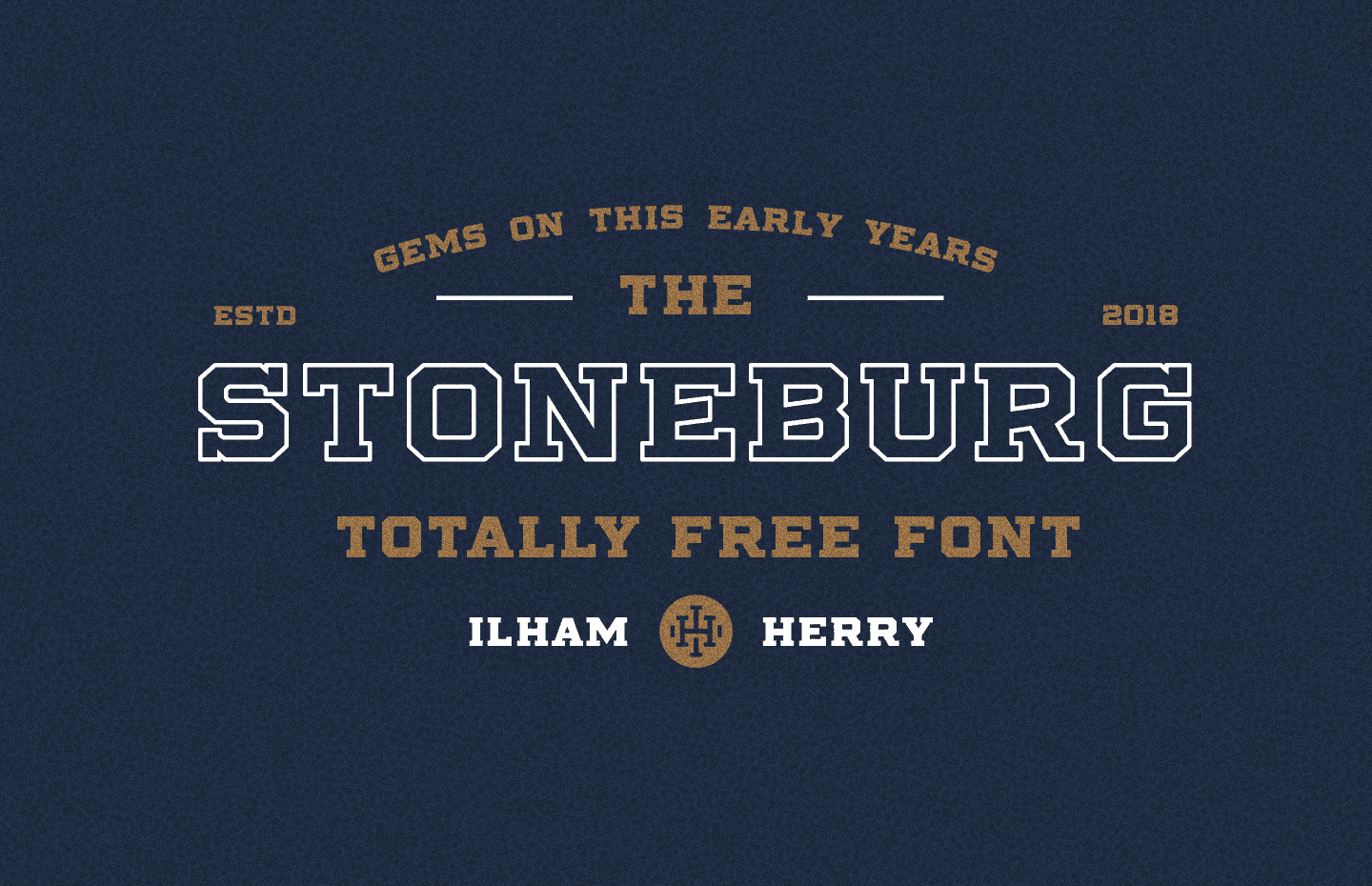
Stoneburg Typeface
Introducing Stoneburg! It is designed and shared by Ilham Herry. Stoneburg font come with 4 styles, Block, Rounded, Outline, and Hatch, you can mix and match as you want. Stoneburg is perfect for logo design, branding projects, packaging, advertising, book cover design, social media posts and blogs, e-commerce and any type of print or web invitations and many others.